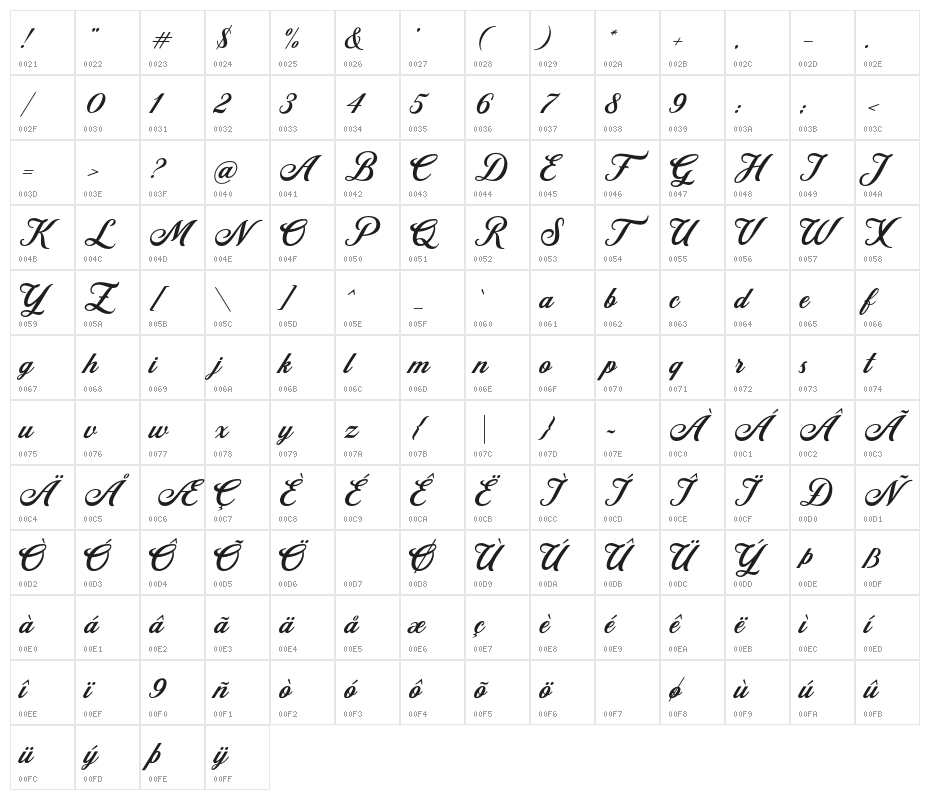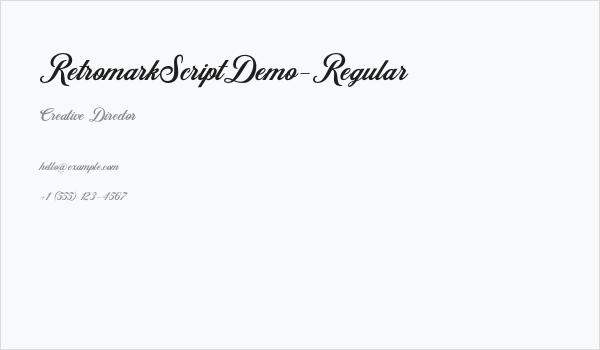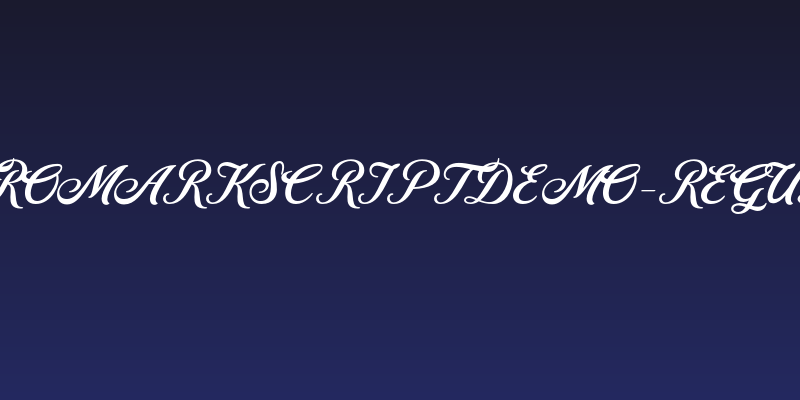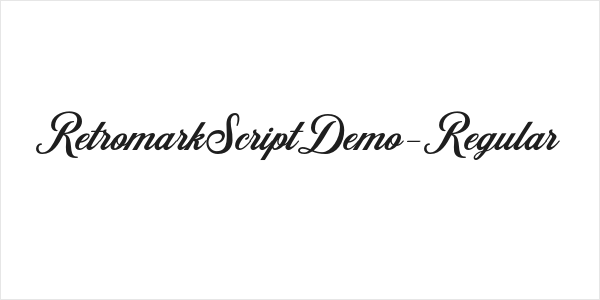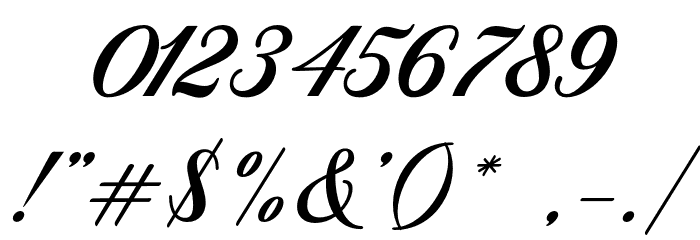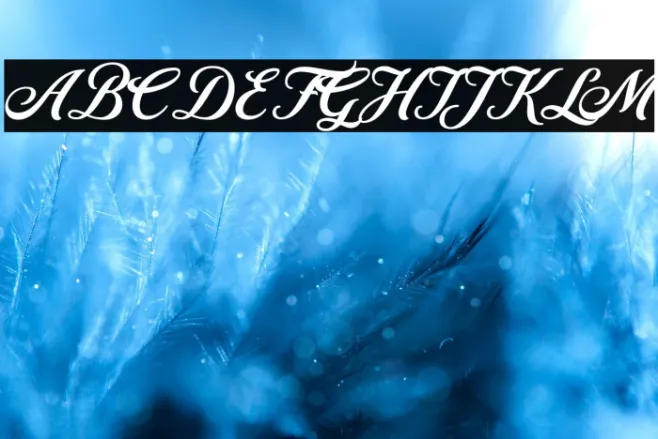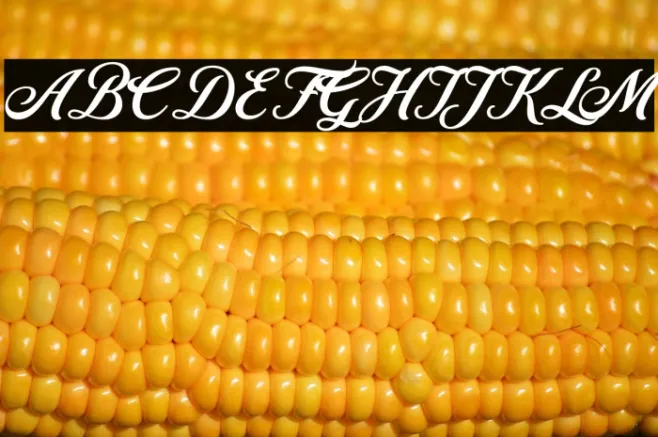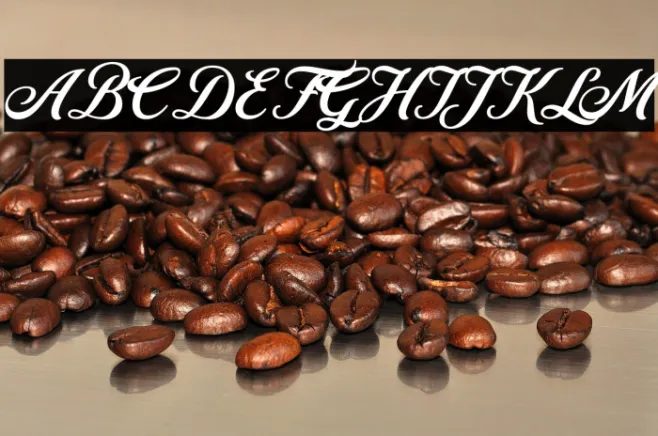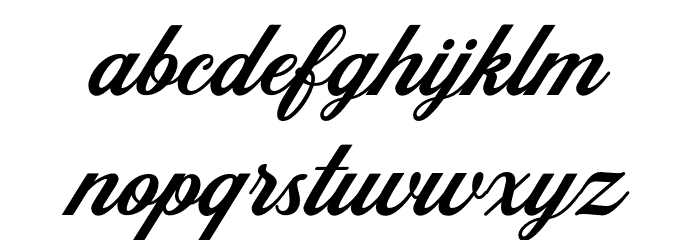
RetromarkScriptDemo-Regular Font
RetromarkScriptDemo-Regular Description
This font features a flowing, cursive style with elegant loops and flourishes, reminiscent of classic calligraphy. The uppercase letters are ornate, with sweeping lines that give a sense of movement and grace. The lowercase letters maintain a consistent flow, enhancing readability while retaining a sophisticated appearance. Numbers and special characters are designed to match the overall script style, ensuring a cohesive look across all text. This font is ideal for projects that require a touch of elegance and tradition.
| Proposed Projects | Wedding invitations, greeting cards, branding materials, and elegant signage. |